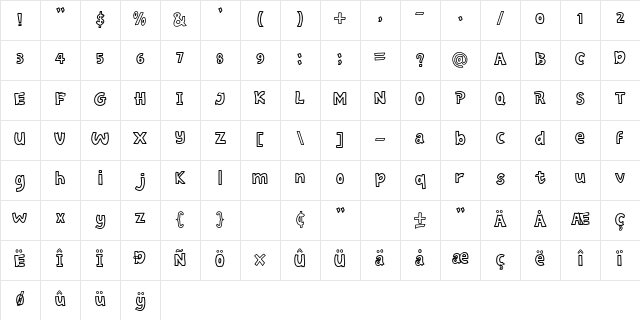
Urban Sketch Outline Regular Free Font
Urban Sketch Outline Regular
Foundry: ￿Insan Perkasya
Designer: Muhammad Darul Arqam
Design Context for Urban Sketch Outline
Urban Sketch Outline is built around its visual character rather than neutral utility - its distinctive forms are designed to make an impression at display sizes.
Font Pairing: Pair with a clean neutral sans-serif for body copy to let Urban Sketch Outline's character lead without overwhelming the composition.
Pro Tip: Use Urban Sketch Outline exclusively at display sizes - it was designed to be seen, not read at length. Let a neutral companion handle body copy.